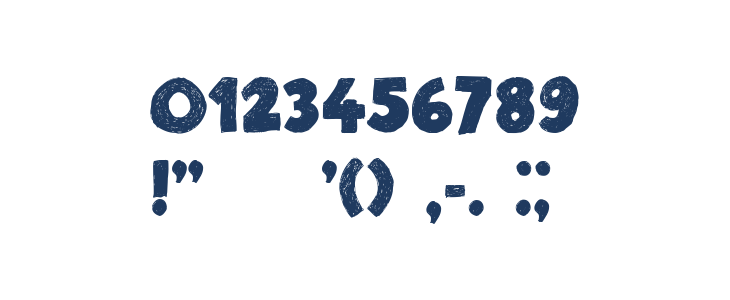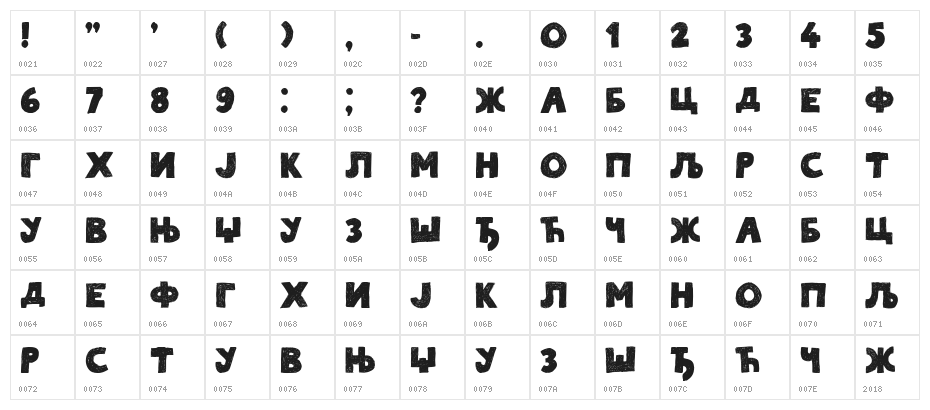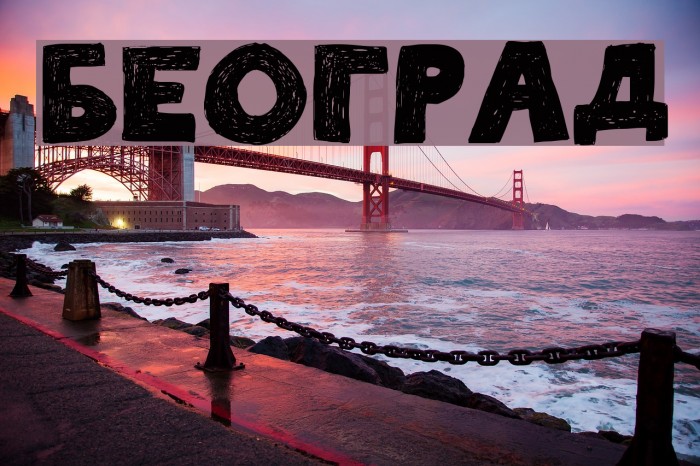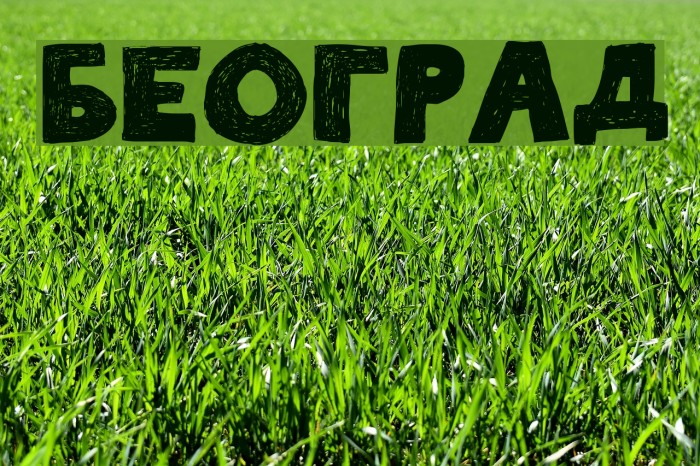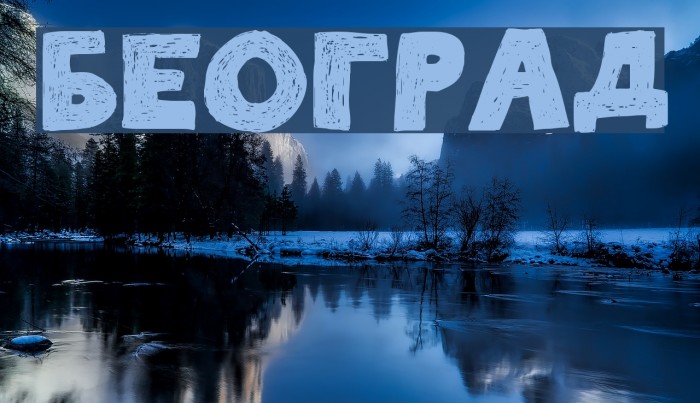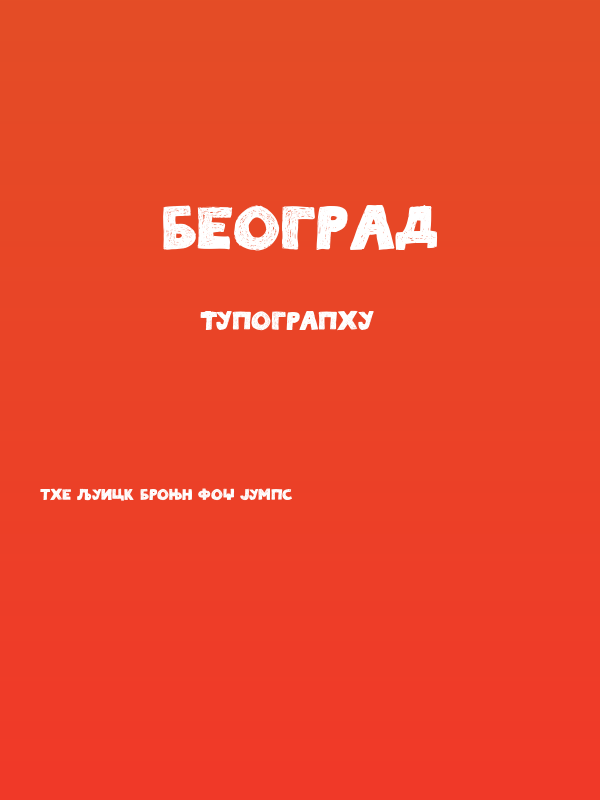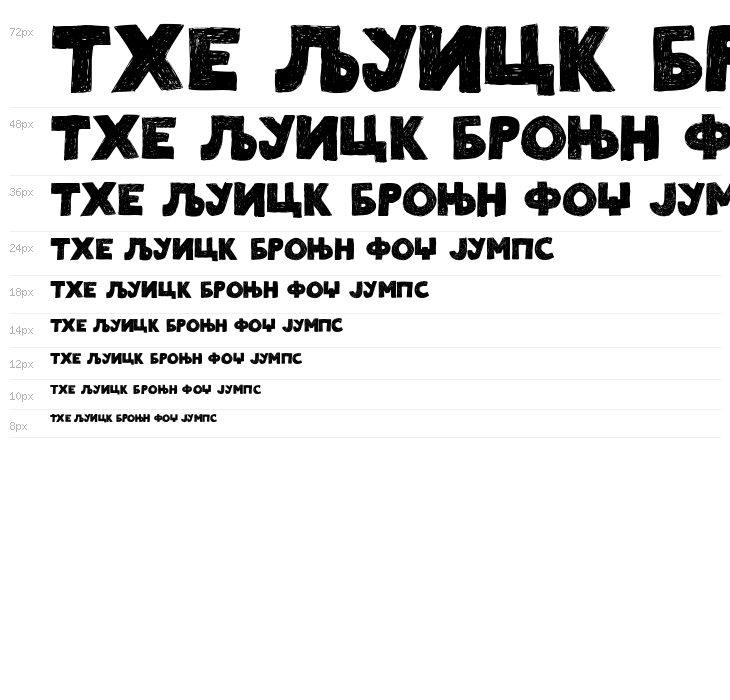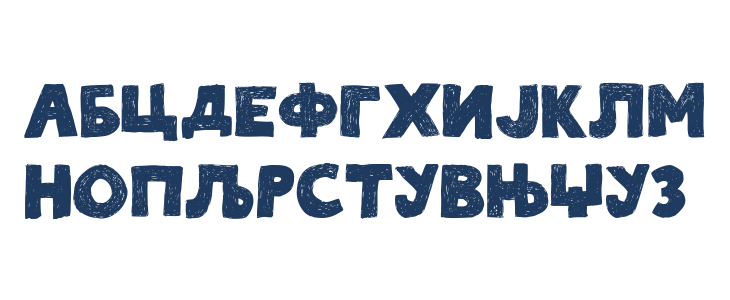
Beograd Font
Beograd Description
This font features a bold and textured style, reminiscent of vintage printing techniques. The characters are robust and have a distressed appearance, giving them a unique, handcrafted feel. The uppercase letters are prominent and assertive, while the numbers and special characters maintain the same boldness and texture. The font's rugged aesthetic makes it ideal for projects that require a strong visual impact, such as posters, headlines, or branding materials. The texture adds depth and character, making each letter stand out individually.
| Use Case | Headlines, Posters, Branding |
| Proposed Projects | Ideal for posters, branding, headlines, and any design needing a strong, vintage aesthetic. |